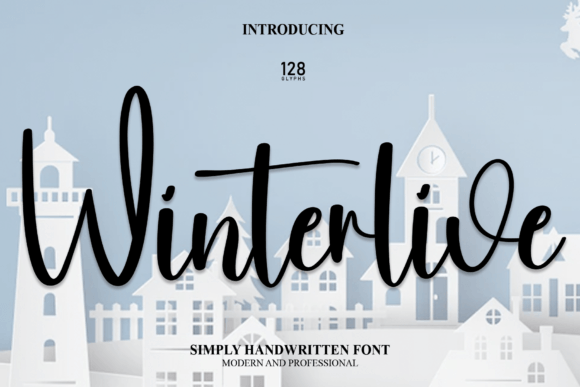
Introducing Winterlive Font: A Timeless Journey into Vintage Charm
Step into a world of timeless elegance with Winterlive Font, a captivating script font that exudes vintage charm like no other. Designed with a touch of nostalgia and a dash of romance, this enchanting typeface will transport you to an era of classic beauty and heartfelt expression. Its flowing curves and delicate strokes evoke a sense of longing, making it the perfect choice for creating designs that speak to the heart.
Embrace the allure of vintage t-shirts, where every word tells a story. Let Winterlive Font grace your designs with its timeless appeal, evoking memories of simpler times and cherished moments. From heartfelt love letters to whimsical invitations, Winterlive Font adds a touch of magic to every creation, making your words dance with grace and elegance.
Dive into a world of creative possibilities with Winterlive Font. Whether you're a seasoned designer or just starting your creative journey, this font is your steadfast companion. Its versatility knows no bounds, seamlessly adapting to a myriad of styles and projects. From stunning logos that command attention to captivating social media posts that spark engagement, Winterlive Font empowers you to craft designs that leave a lasting impression.
With Winterlive Font by your side, you'll embark on a creative adventure where imagination reigns supreme. Its effortlessly flowing script invites you to explore the depths of your creativity, unlocking a realm of endless possibilities. So, let your artistic spirit soar and embrace the enchanting beauty of Winterlive Font, a font that will forever hold a special place in your creative arsenal.